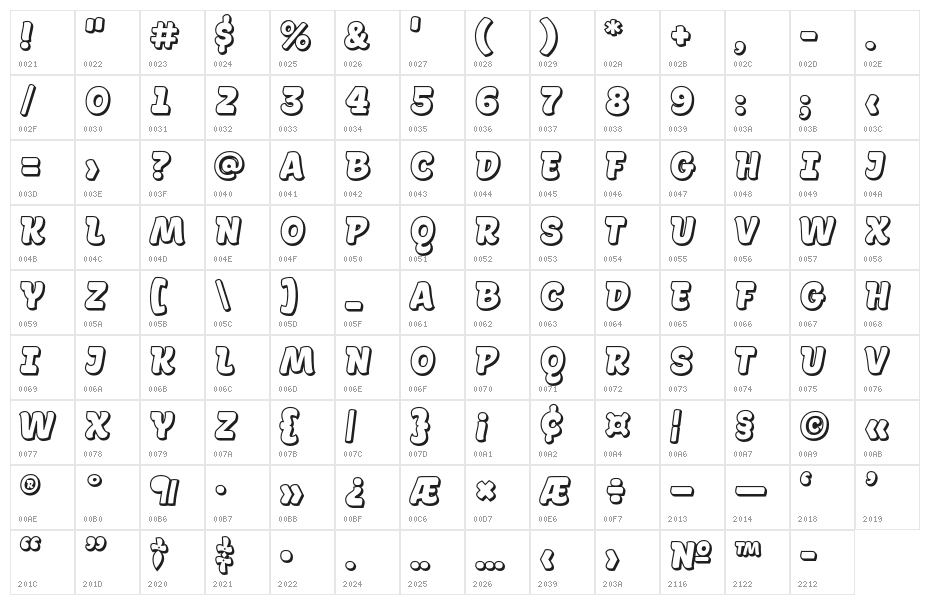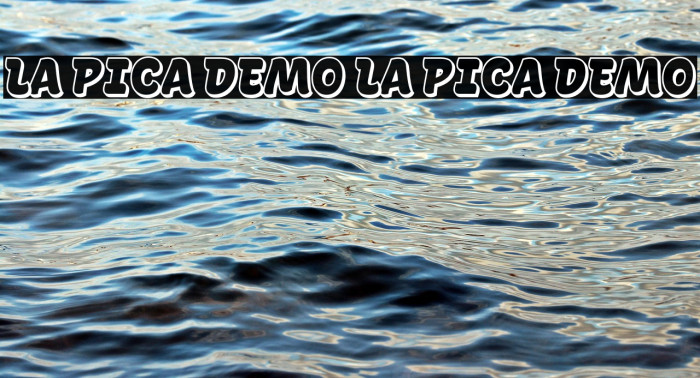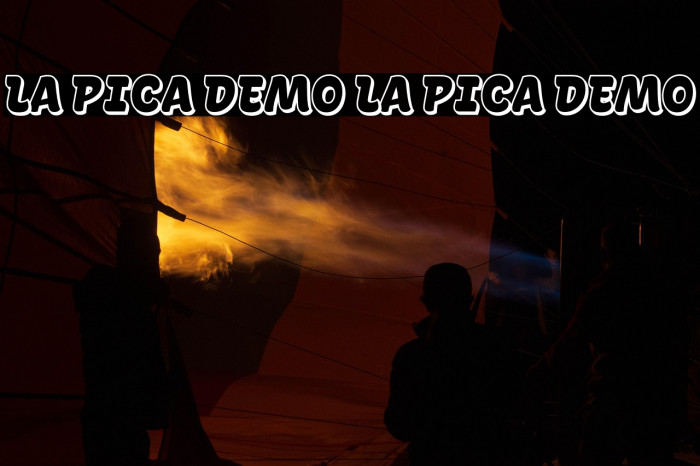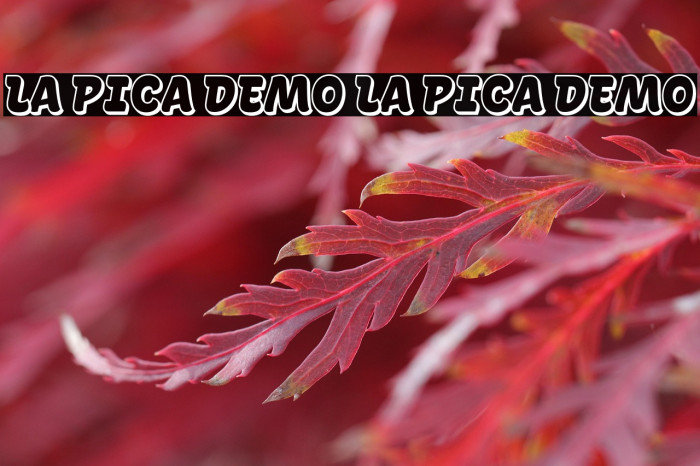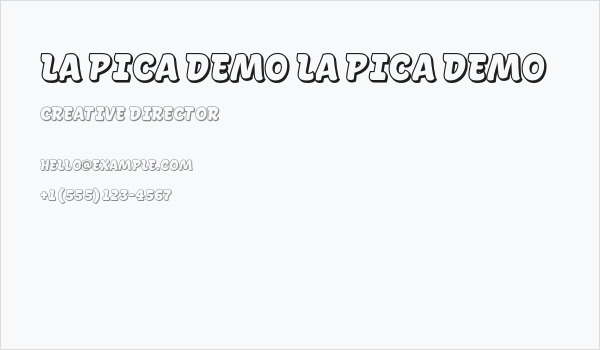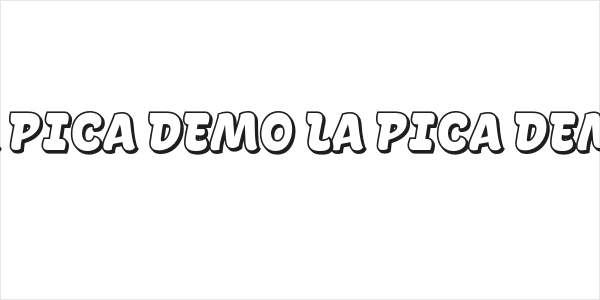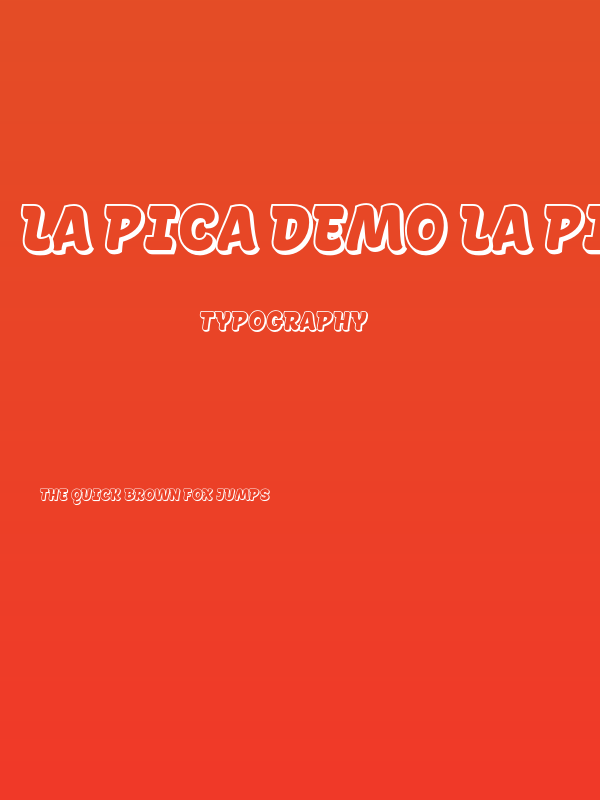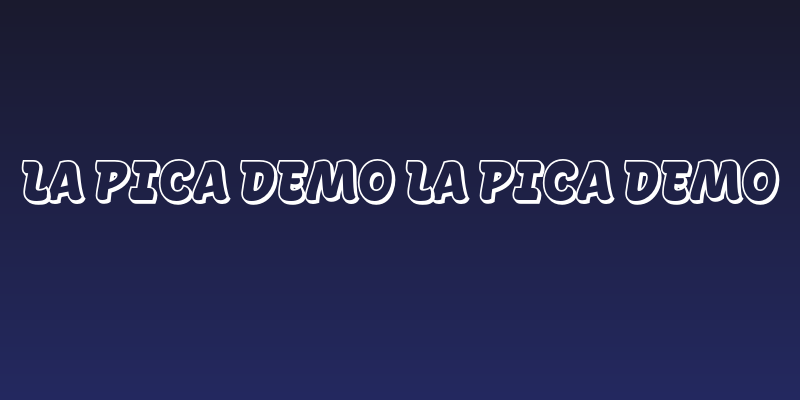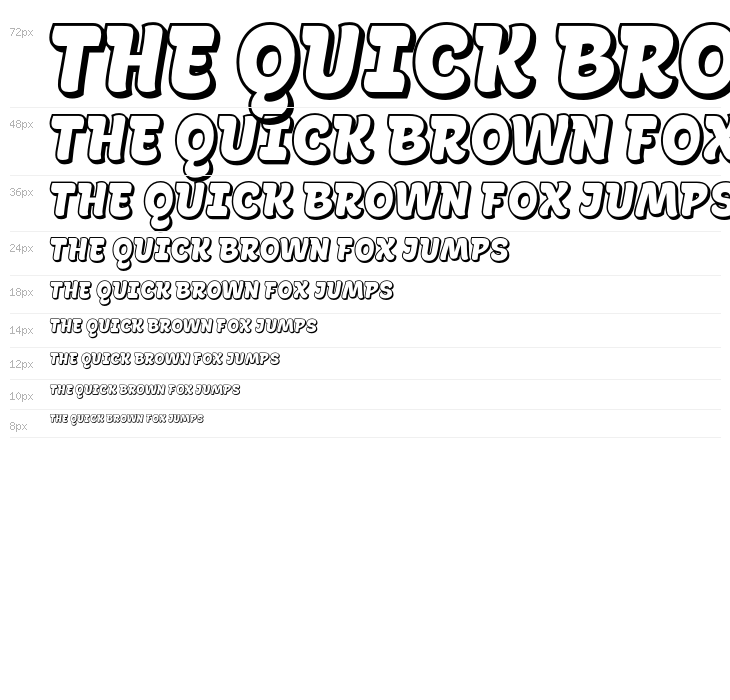
La Pica Demo Font
La Pica Demo Description
This font features a bold, playful style with a strong outline that gives each character a three-dimensional effect. The letters are rounded and slightly inflated, creating a sense of fun and whimsy. The uppercase and lowercase alphabets maintain a consistent style, with a uniform thickness that enhances readability. Numbers and special characters follow the same design principles, ensuring a cohesive look across all glyphs. The font's boldness and unique outline make it stand out, ideal for projects that require a lively and engaging typeface.
| Overall Style | Playful, Fun |
| Proposed Projects | Ideal for children's books, comic strips, playful branding, and eye-catching headlines. |